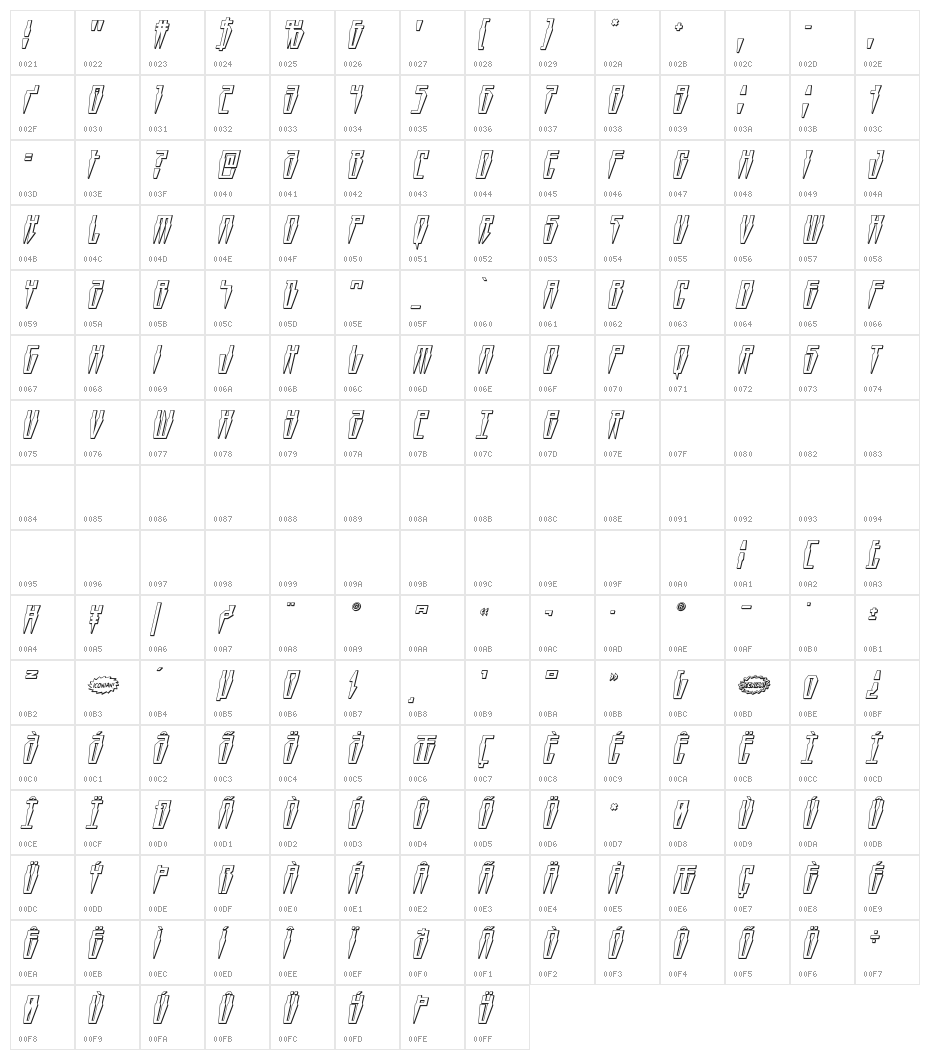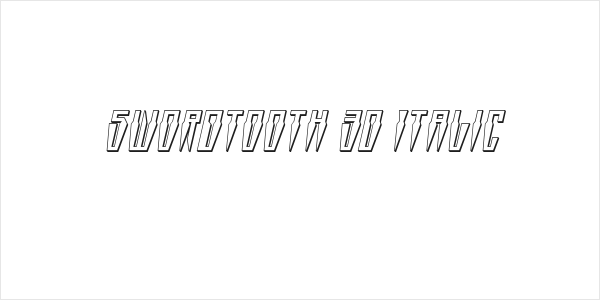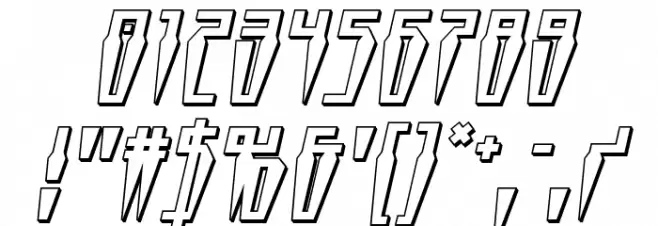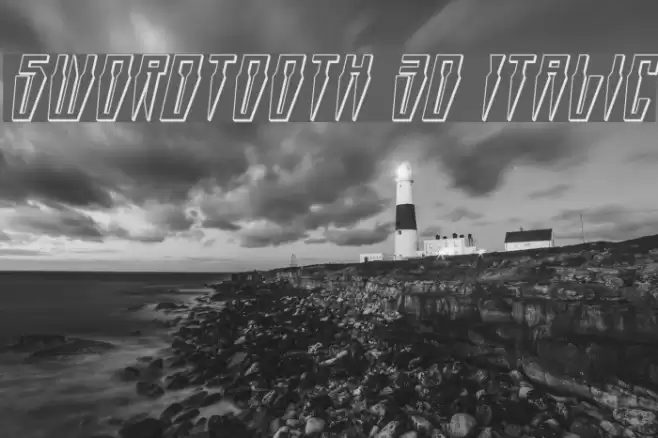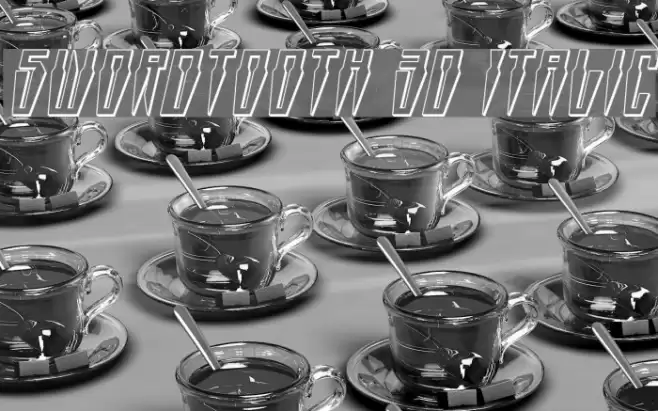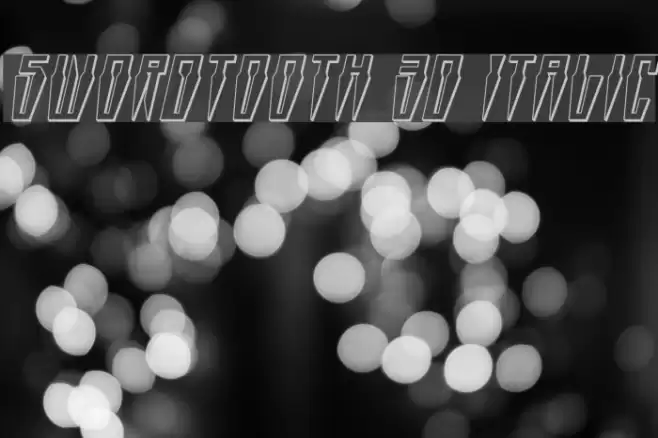
Swordtooth 3D Italic Font
Swordtooth 3D Italic Description
This font features a bold, angular design with a distinct 3D effect, giving it a futuristic and dynamic appearance. The letters are sharply pointed and elongated, creating a sense of movement and energy. The italic slant adds to its aggressive and modern style, making it stand out in any design. The characters are outlined, enhancing the 3D illusion and providing a unique visual depth. This font is ideal for projects that require a strong, impactful presence, such as video game titles, movie posters, or any media that aims to capture attention with a bold statement.
| Proposed Projects | Ideal for video game titles, movie posters, and attention-grabbing media. |